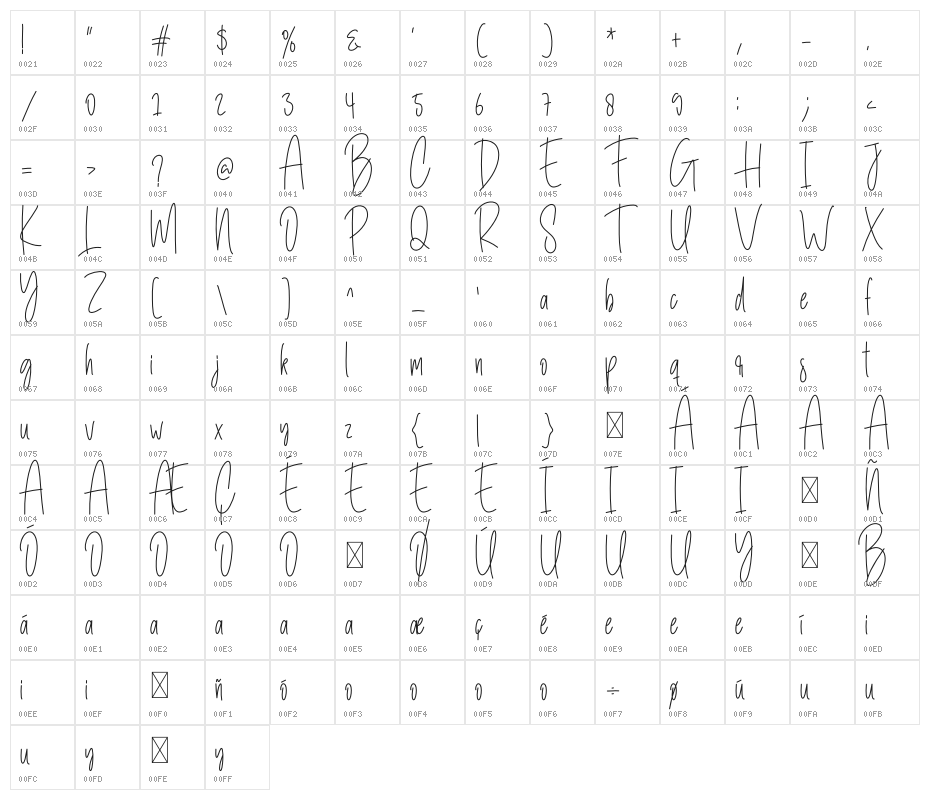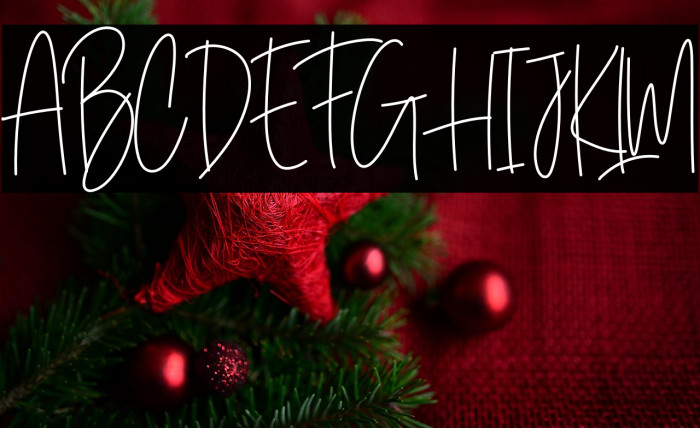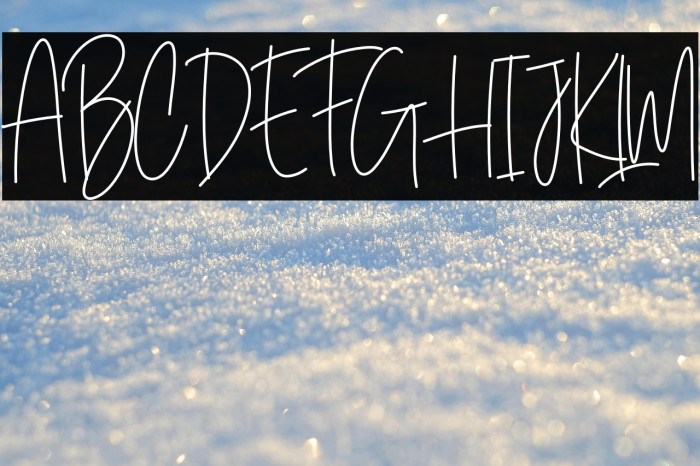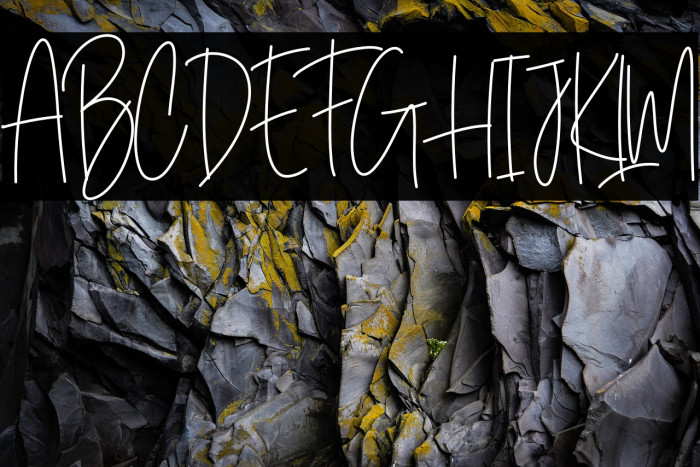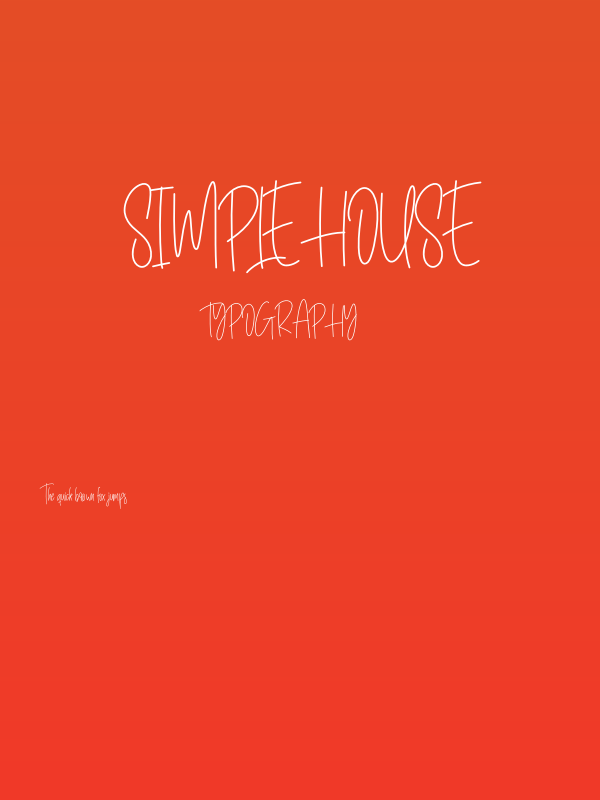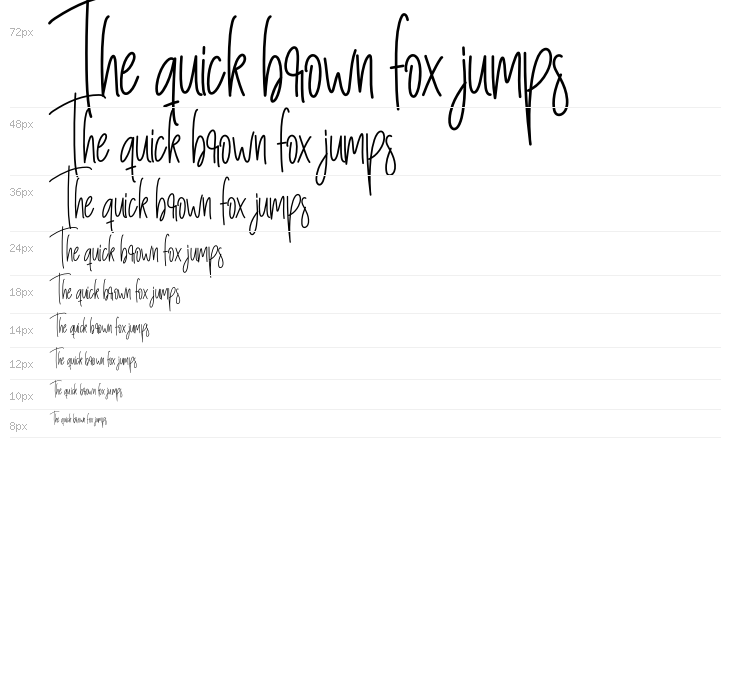
Simple House Font
Simple House Description
This font features a playful and casual handwritten style, characterized by its tall, narrow letters with a slight slant. The strokes are smooth and fluid, giving it a relaxed and informal appearance. The uppercase letters are particularly elongated, while the lowercase letters maintain a consistent height, adding to its whimsical charm. The numbers and special characters follow the same style, ensuring a cohesive look across all text. This font's unique personality makes it stand out, offering a friendly and approachable vibe.
| Width | Condensed |
| Overall Style | Casual |
| Use Case | Headlines, Informal text, Personal projects |
| Proposed Projects | Ideal for greeting cards, personal branding, social media graphics, and informal invitations. |